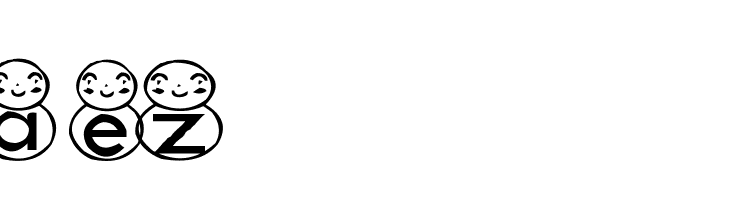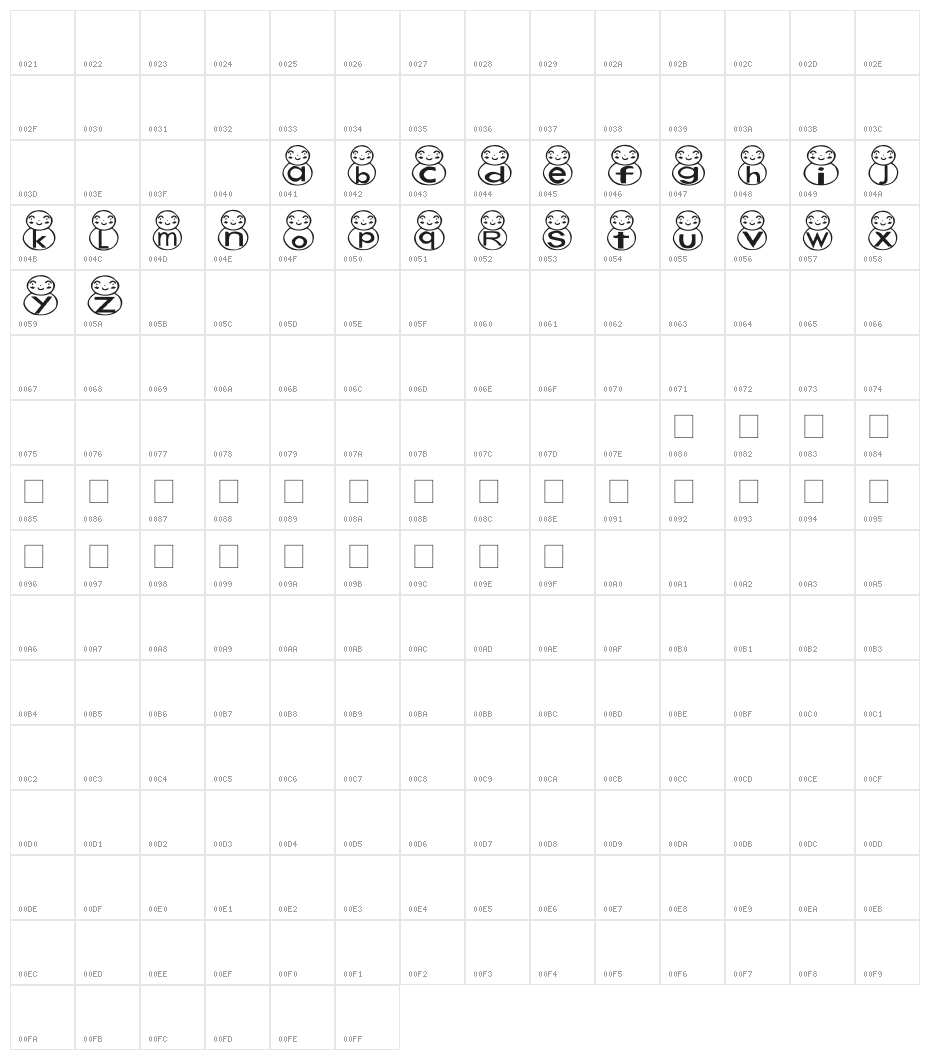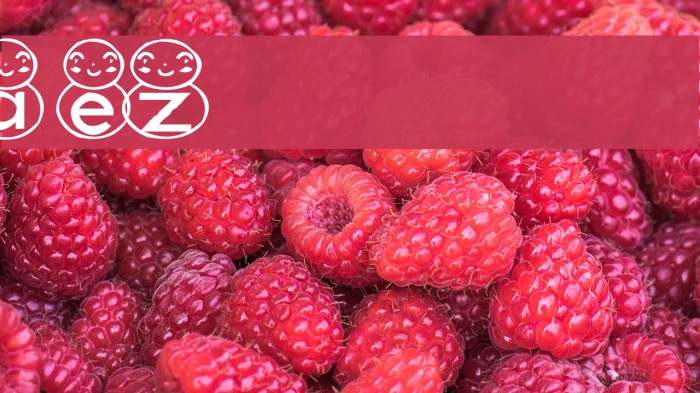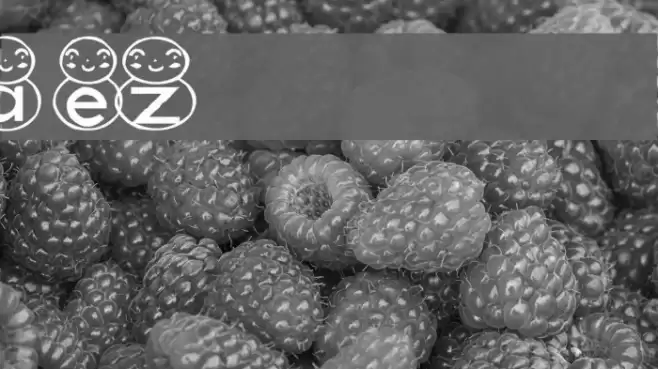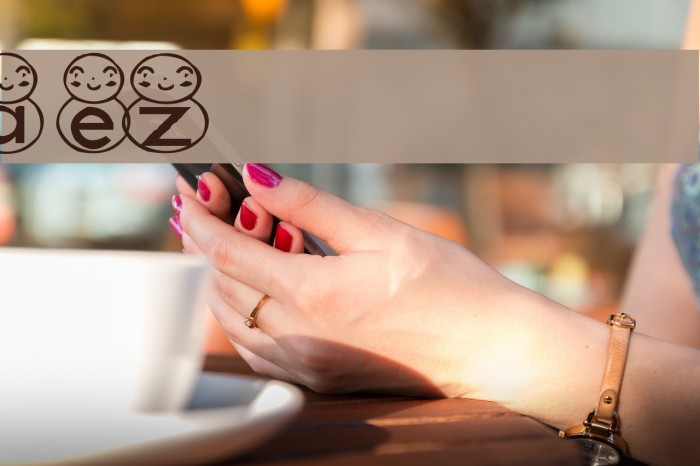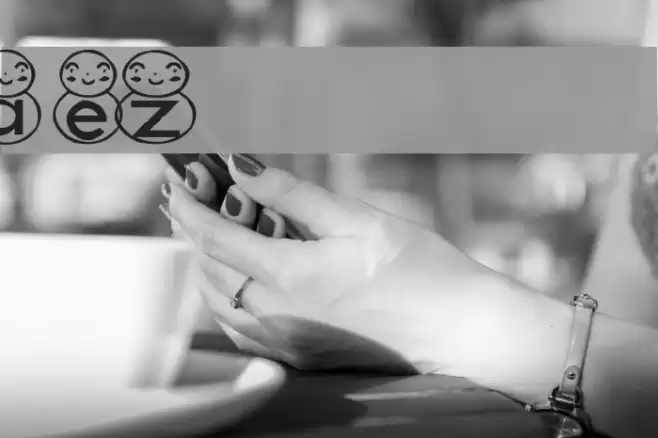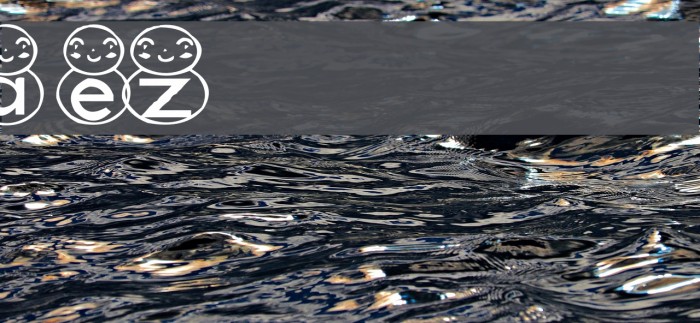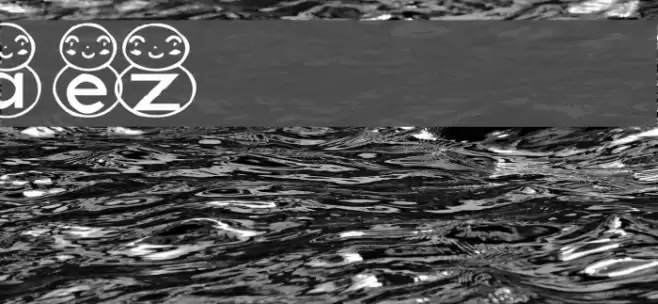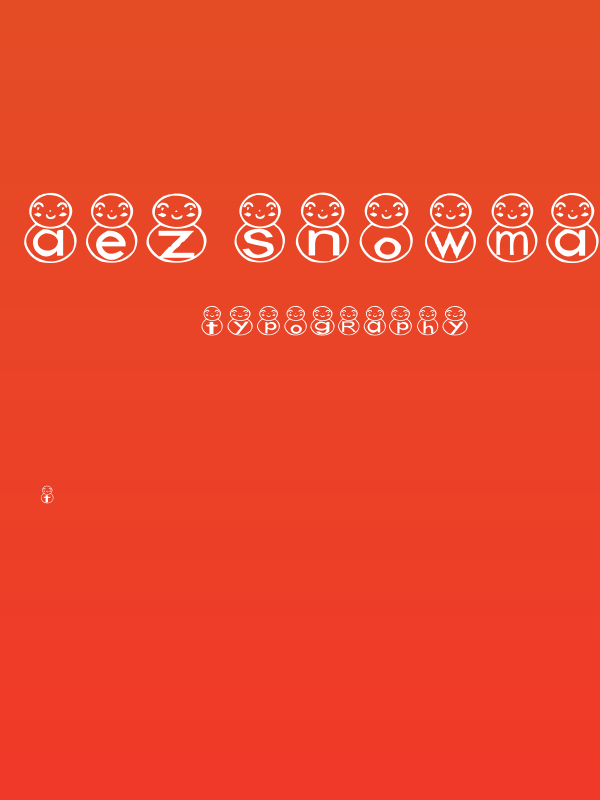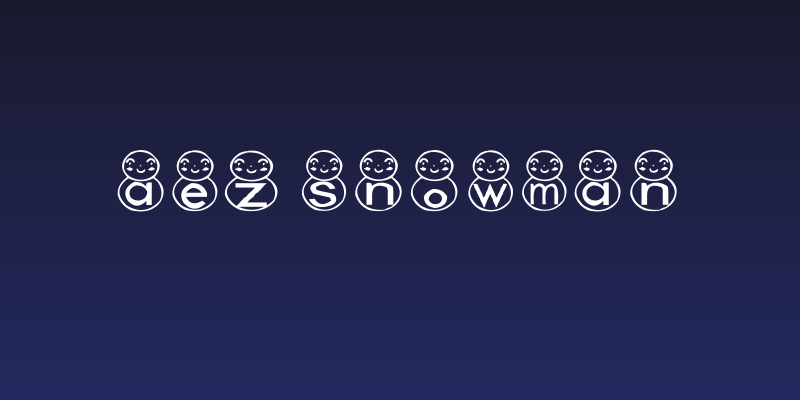
AEZ snowman Font
AEZ snowman Description
This whimsical and playful font features each character enclosed within a snowman face, complete with a smiling expression. The letters are bold and rounded, providing a friendly and approachable feel. The unique design incorporates a festive and cheerful theme, making it ideal for holiday-related projects. The characters are evenly spaced within their snowman enclosures, ensuring readability while maintaining the decorative style. This font is perfect for adding a touch of fun and creativity to any design, especially those aimed at children or festive occasions.
| Proposed Projects | Holiday cards, children's party invitations, festive banners, winter-themed posters. |